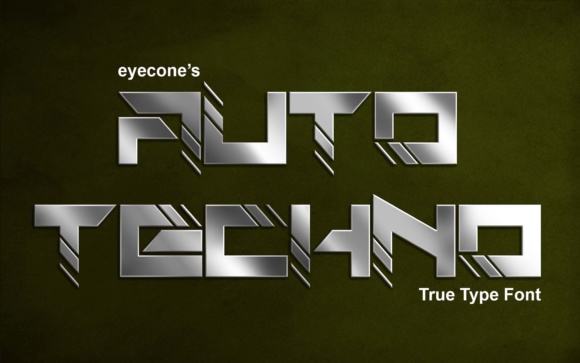
Auto Techno Font: A Striking True Type Font by EyeCone
The world of typography is vast and diverse, with numerous fonts available for various design needs. Among these, the Auto Techno font stands out as a unique and striking true type font created by EyeCone. In this article, we’ll delve into the features, design, and uses of the Auto Techno font, exploring what makes it a popular choice among designers.
What is Auto Techno Font?
The Auto Techno font is a digital typeface designed by EyeCone, a creative entity known for producing distinctive and functional fonts. This particular font is categorized as a true type font, making it versatile and compatible with various digital platforms. The Auto Techno font is characterized by its futuristic and technological aesthetic, which is evident in its sleek lines and modern appearance.
Design and Usage
The design of the Auto Techno font is centered around its futuristic theme, making it ideal for projects that require a modern and technological look. The font’s sleek and clean lines ensure readability, while its unique style adds a touch of sophistication to any design. The Auto Techno font can be used in a variety of applications, including:
- Logo design: The font’s distinctive style makes it perfect for creating memorable logos.
- Digital media: Its compatibility with various digital platforms makes it suitable for website headers, advertisements, and social media graphics.
- Print media: The font can also be used in print materials such as brochures, posters, and business cards.
Typography and Readability
Typography plays a crucial role in design, as it can significantly impact the readability and aesthetic appeal of a project. The Auto Techno font excels in both areas, offering a unique typographic style that is both visually appealing and easy to read. The font’s design ensures that text remains legible even at smaller sizes, making it a practical choice for a wide range of applications.
The Auto Techno font also offers a range of typographic features, including:
- Bold and italic styles: These variations allow designers to add emphasis and create visual hierarchy in their text.
- Character spacing: The font’s spacing is carefully designed to ensure optimal readability.
Additionally, the Auto Techno font is designed with accessibility in mind. Its clear and legible design ensures that it can be used by individuals with visual impairments, making it a great choice for projects that require accessible typography.
In conclusion, the Auto Techno font is a striking and versatile true type font designed by EyeCone. Its futuristic aesthetic, combined with its readability and compatibility, make it an excellent choice for a wide range of design projects. Whether you’re a graphic designer, a digital artist, or simply someone looking for a unique font, the Auto Techno font is definitely worth considering.